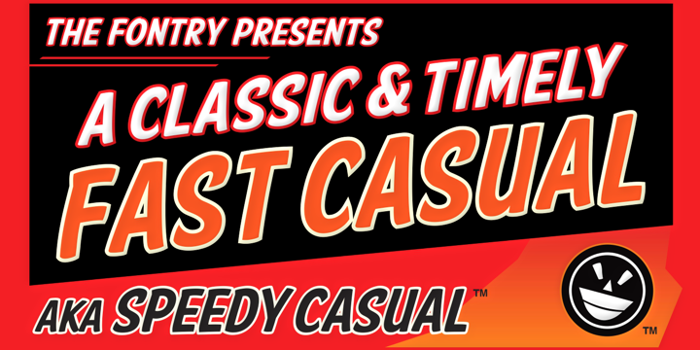
FTY SPEEDY CASUAL NCV Font
The commercial version of the font includes lowercase characters, opentype features and a wide-range of replacement options.
You can't go through life all rigid and uptight. You need to relax. Find some casual time. Or lean it
hard right if you want to go FAST! Either way, this old-fashioned casual will get you there in a hot hurry. Or maybe you really do just want to go slow and upright, which surely can't be true. We all have a secret urge to lean it into the wind and push that old tin hoopty as hard as she'll run. Well, no matter how you decide to use it, this is the font for the job. SPEEDY CASUAL is a throwback to the hand-lettered days of hotrods without fenders and the showcards that extolled their virtues at the local car shows. Luckily SPEEDY is a lot less messy to handle, because you don't need a paint brush to make this lettering work!
Note: SPEEDY CASUAL is an updated version of AMERICAN PURPOSE CASUAL. The name is better-suited to the theme and language options have been added. The commercial version of the font includes lowercase characters, opentype features and a wide-range of replacement options.